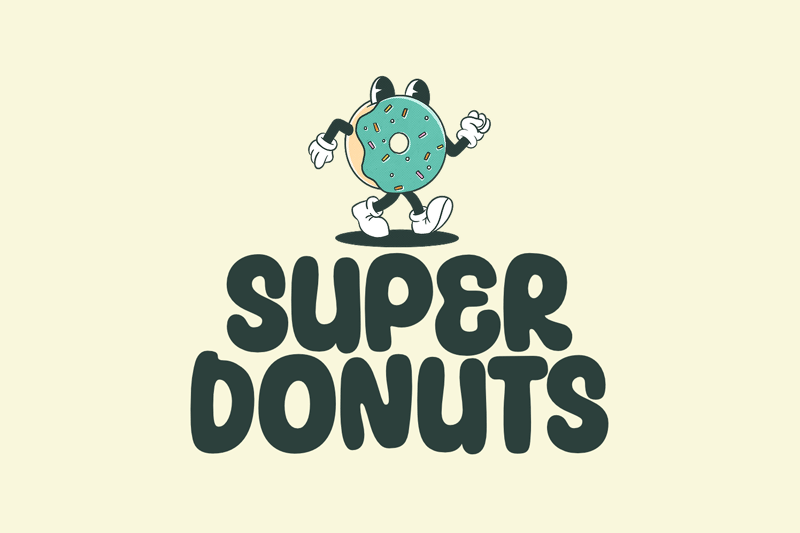
Preview and download Super Donuts Font. Created by fsuarez913 in Fancy Cartoon styles with Free for personal use license.
This font is for PERSONAL USE ONLY!. If you want to use this font for commercial purposes, you will need to purchase a commercial license. You can purchase a commercial license at https://singlelinestd.com/product/super-donuts/ Super Donuts is a fun and playful font with a cartoony feel. The thick strokes and large letters make it perfect for headlines and other large-scale text. The rounded edges and simple shapes give it a lighthearted and fun look. It�s the perfect font for projects that need a touch of personality. For questions, please visit https://singlelinestd.com/contact/ |